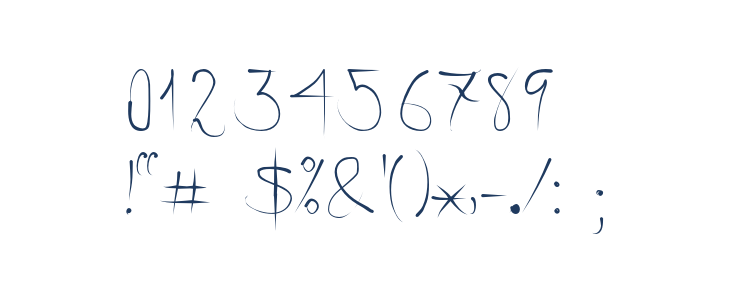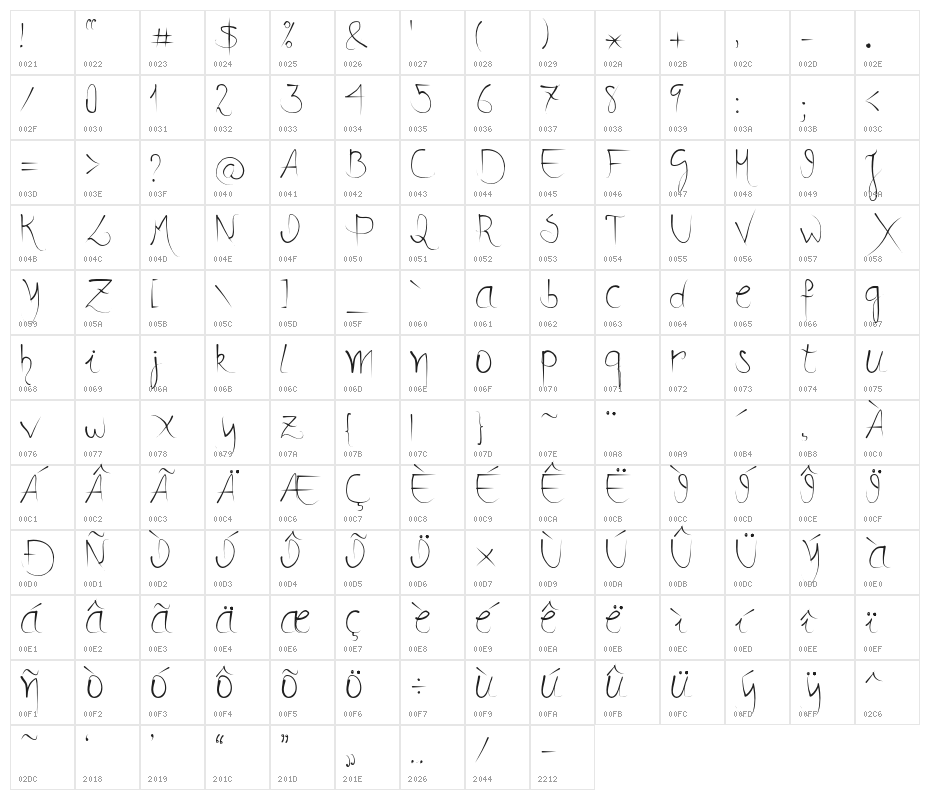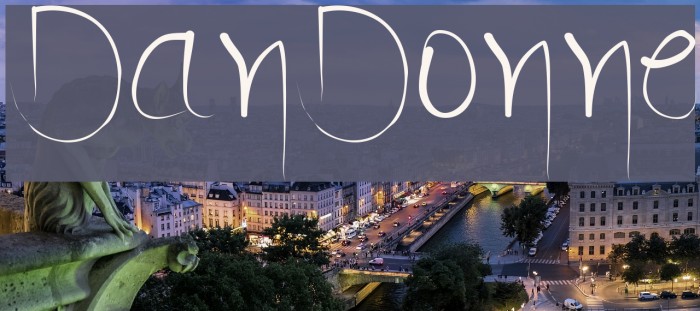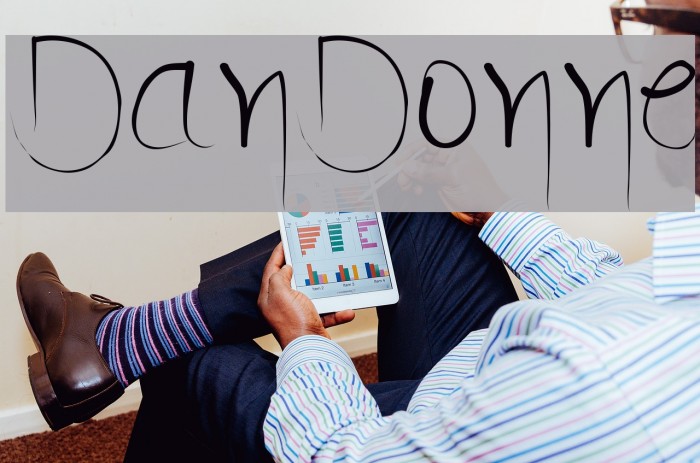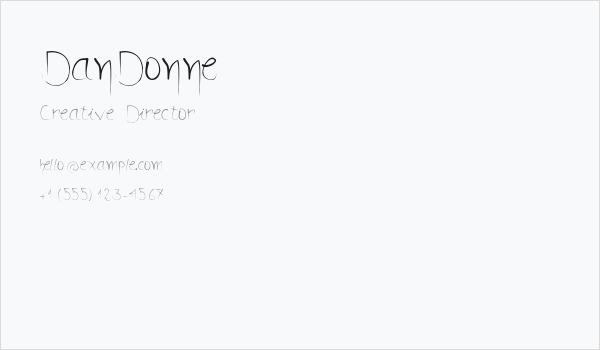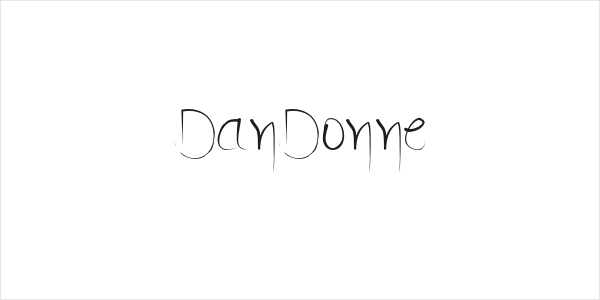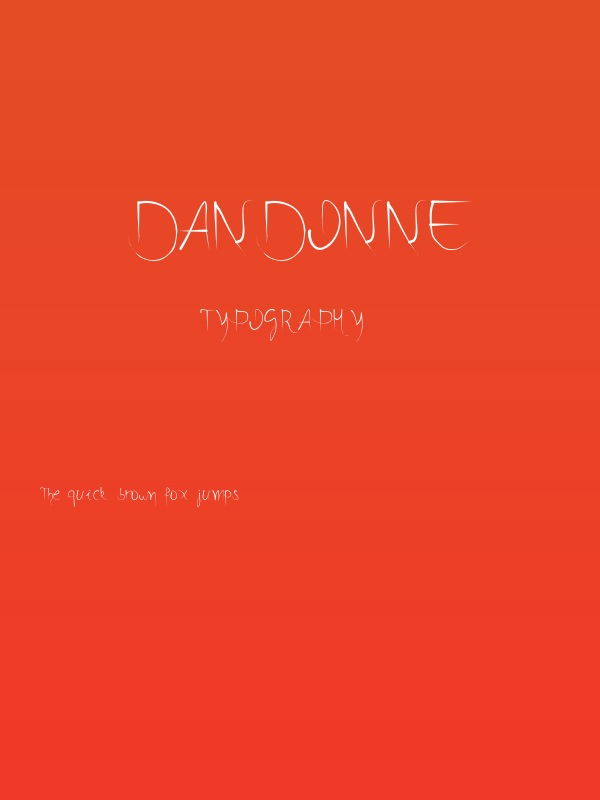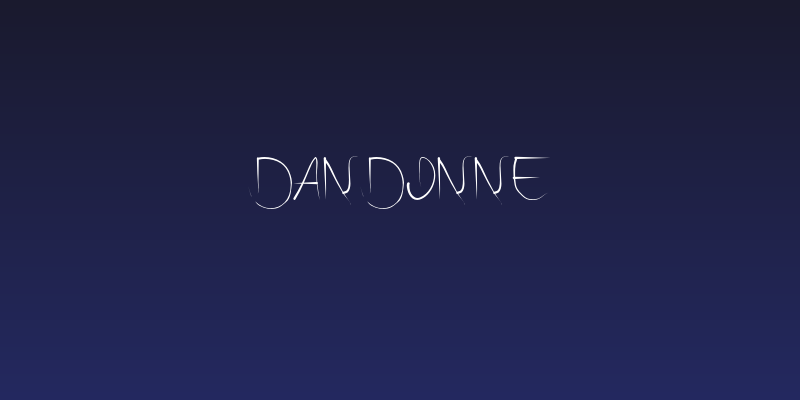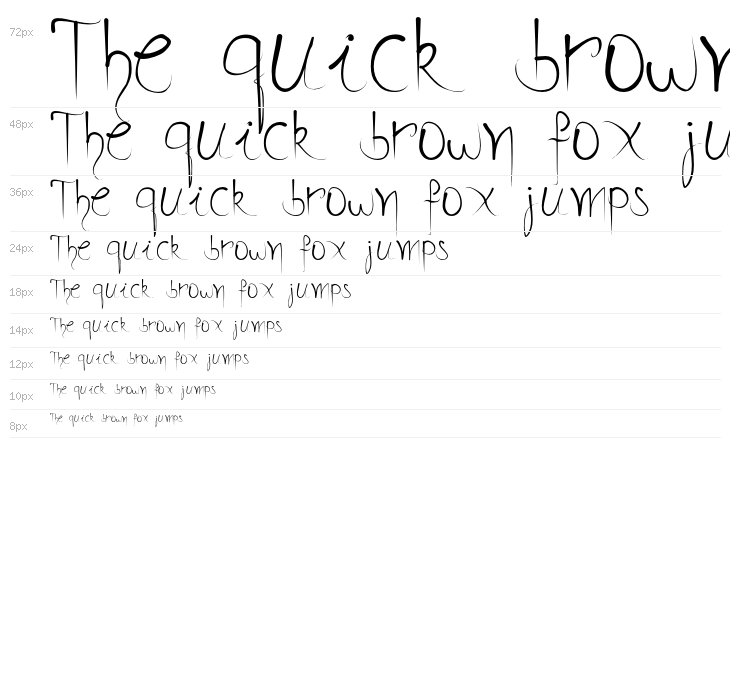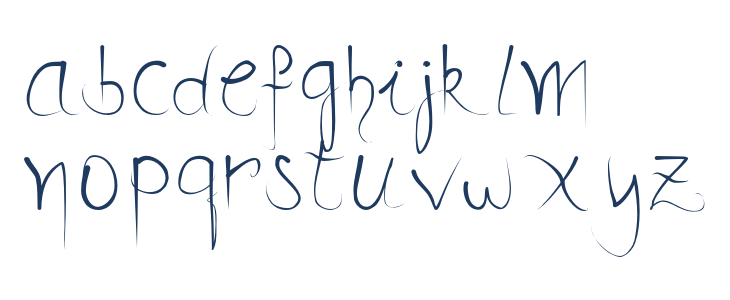
DanDonne Font
DanDonne Description
This font features a unique and artistic style with elongated and flowing strokes that give it a whimsical and elegant appearance. The characters are thin and delicate, with a hand-drawn quality that adds a personal touch. The uppercase letters are tall and slender, while the lowercase letters maintain a consistent height, creating a harmonious balance. The numerals are distinct and maintain the same artistic flair as the alphabet. Special characters are creatively designed, adding to the font's overall charm. This font is perfect for projects that require a touch of sophistication and creativity.
| Use Case | Logos, Invitations, Artistic Projects |
| Proposed Projects | Ideal for wedding invitations, greeting cards, artistic posters, and branding materials. |